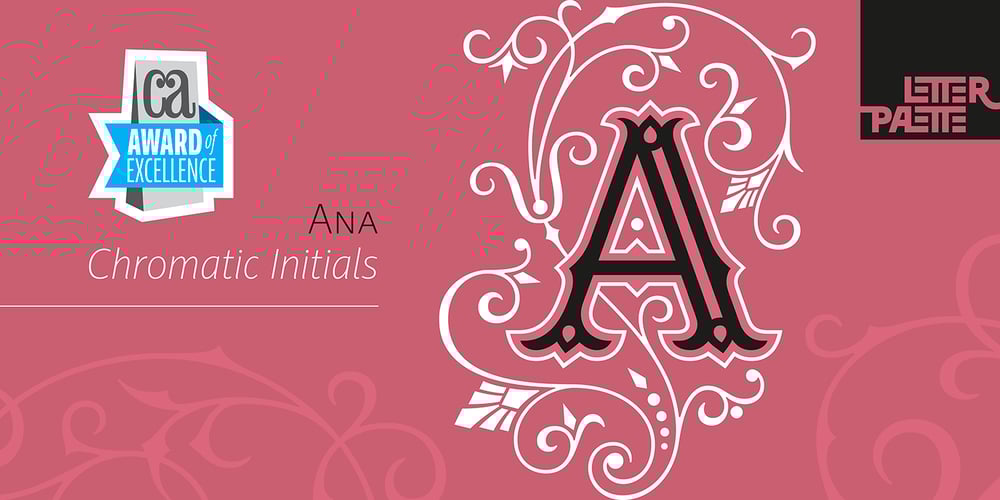
Ana font
Ana Font Family was designed by Vedran Eraković and published by LetterPalette. Ana contains 6 styles and family package options. Ana is a chromatic typeface consisting of 26 uppercase Latin characters, inspired by arabesque patterns from the nineteenth century. Programmed to enable users to easily create multicolored drop caps and initials, this decorative display typeface features a different ornament for every letterform, which fits perfectly with its glyph shape. This ornament is usually more luxurious on the left side of the letter, while on the right it is scarce, so that the body text can be placed close to the initial. These initials are valuable for use in large sizes, like posters, magazines, packaging design, fairy tales, and so on. The final forms of the initials consist of 5 parts which can be individually colored. There are 5 font files named Ana Layer A, Ana Layer B, and so on. A font user can manually create a multicolored initial with these font files, if there is no possibility to use the Contextual Alternates option. To do that, it is necessary to make 5 layers in the page layout software. Then, the corresponding character should be placed on each layer, so that Ana Layer A is on the lowest layer and Ana Layer E is on the highest one. Note that the glyph shapes are contained in the lower case positions. In contrast, the font file named Ana is programmed, so it is possible to create a multicolored initial with the Contextual Alternates command. There is no need for additional layers, everything happens on a single layer. First, the Contextual Alternates command (usually under OpenType menu) should be disabled. Then, using lower case key, type the desired character 5 times and apply color to them. Select them all and turn on the Contextual Alternates. Also, the font file Ana comes with a set of ‘black’ initials that can be used just like any other non-color typeface. The ornamental versions are contained in the uppercase positions, while the letters without the ornaments are in the lower case. With the font file Ana Monochrome one can only get the monochrome initials. Ornamental letters are contained in the upper case positions, while the letterforms without the ornaments are in the lower case.